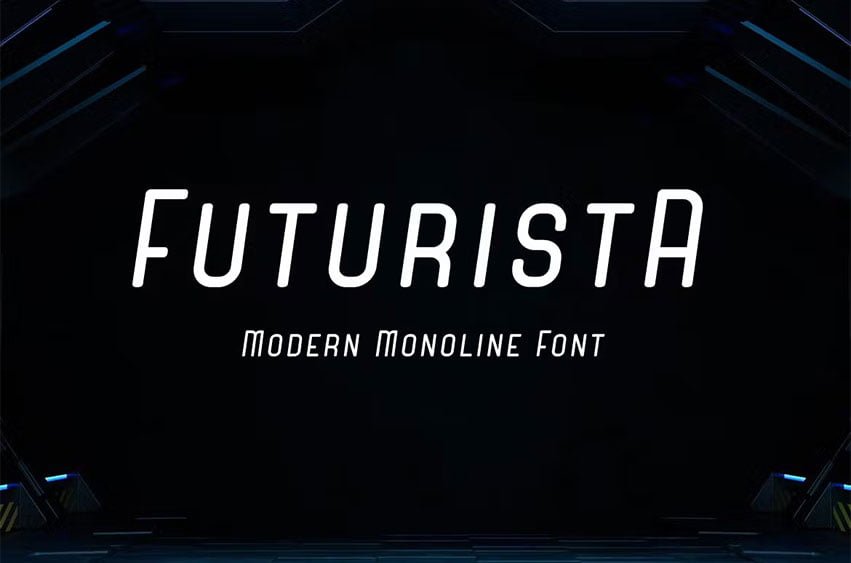
Futurista Font is a modern monoline font. Futurista can be used in any works such as flyer, book title, advertisement, social media content, logo and many more.